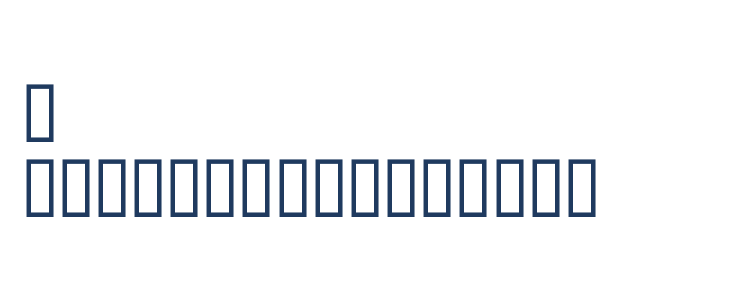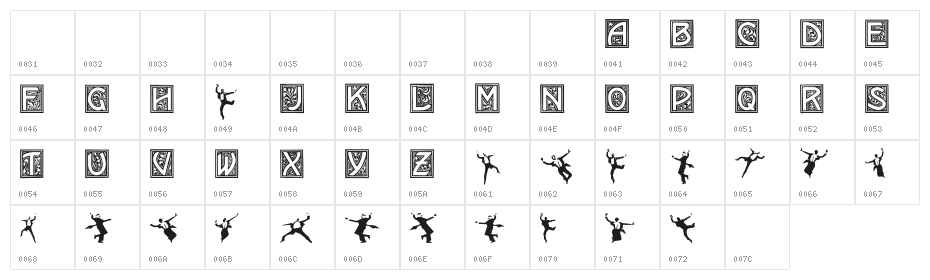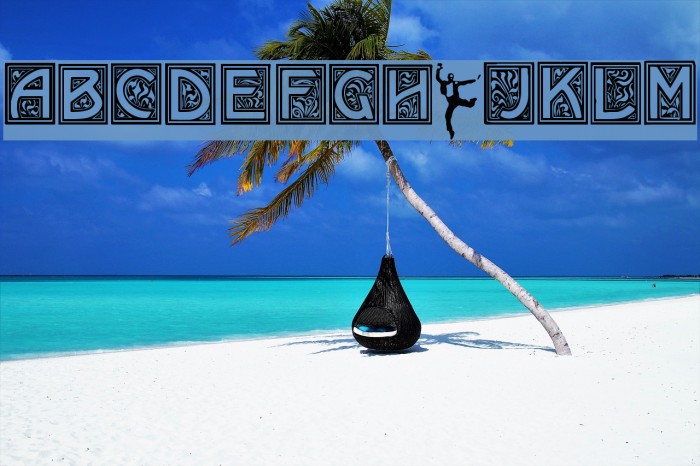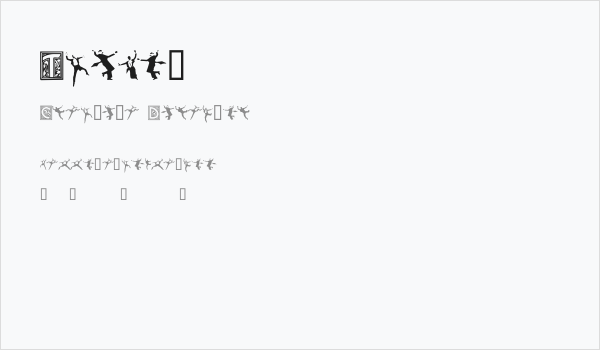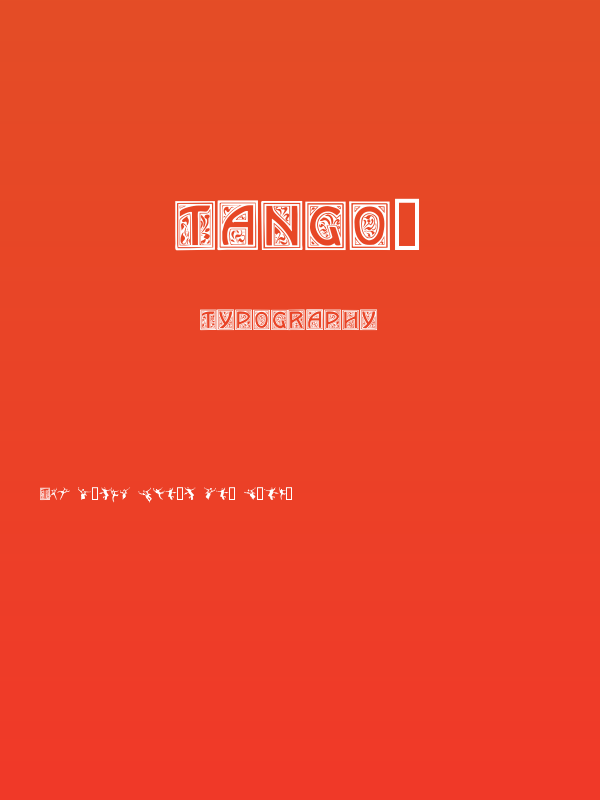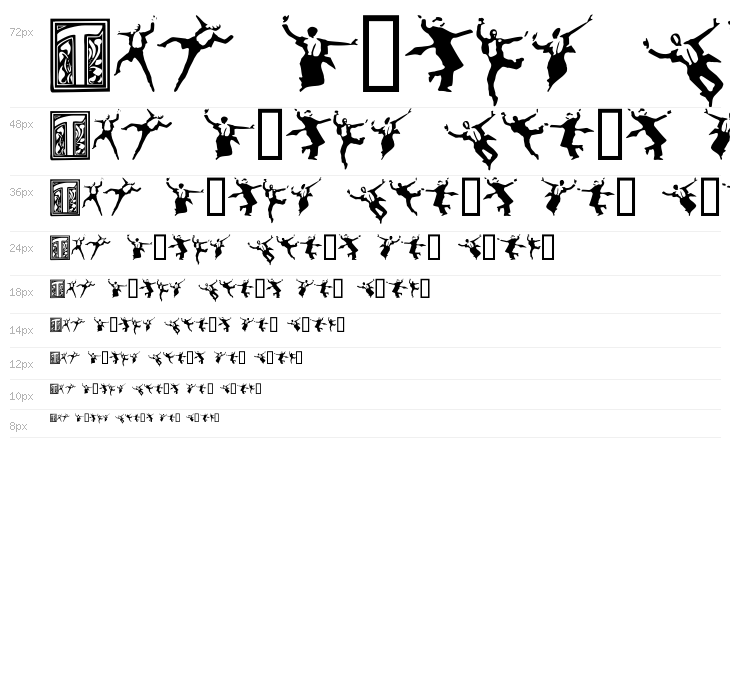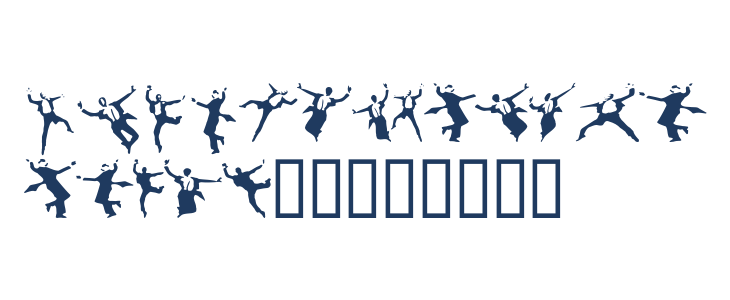
Tango! Font
Tango! Description
This decorative font features intricate, artistic patterns within each letter, creating a unique and visually striking appearance. The uppercase letters are enclosed in square frames, each filled with swirling, organic designs that evoke a sense of movement and elegance. The font is highly stylized, with each character appearing as a piece of art, making it ideal for creative and expressive projects. The bold and detailed nature of the font suggests a strong presence, suitable for making a statement in design work.
| Proposed Projects | Ideal for artistic posters, event invitations, branding for creative industries, and decorative headings. |